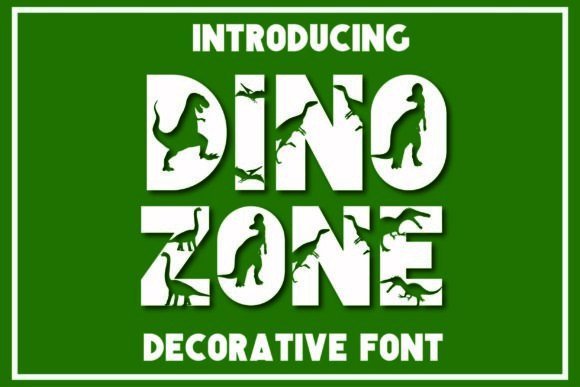
Get Ready to Roar with Creativity: Introducing Dinozone Font
Who hasn’t felt the thrill of a blank page staring back at them, waiting to be transformed into something truly special? For designers and crafty individuals, this moment is a familiar and exhilarating one. As we search for the perfect font to bring our ideas to life, we often find ourselves longing for something that truly stands out from the crowd.
Enter Dinozone Font, a fun and unique decorative font featuring lovely dinosaurs as ornaments. This original look is perfect for adding a touch of whimsy to letterheads, titles, and stationery. Whether you’re a professional designer or a crafty hobbyist, the Dinozone Font is a valuable addition to your creative toolkit.
With its playful and engaging design, the Dinozone Font is sure to inspire a world of creative possibilities. So why settle for a boring, generic font when you can unleash your inner dinosaur lover and make a statement with the Dinozone Font?
Dinozone Font Key Features
- Unique Characteristics: Dinozone Font features a bold, prehistoric-inspired design with a mix of modern and vintage elements, making it perfect for creating a unique visual identity.
Dinozone Font Review
Overall, I think the Dinozone Font is a solid choice for anyone looking for a fun and playful font. ✨ The font’s unique dinosaur-inspired design elements make it stand out from more generic sans-serif fonts. It’s perfect for projects that need a touch of whimsy or nostalgia.
- ✨ The font’s distinct design makes it easy to recognize and remember.
- ✨ The font’s versatility allows it to work well in a variety of contexts, from logos to body text.
- ✨ The font’s unique characters and symbols add a touch of personality to any project.
- ⚠️ The font may not be suitable for formal or professional projects, as it can come across as too playful or immature.
- ⚠️ The font’s bold and condensed versions may not be as legible as the regular version, especially at smaller font sizes.
In conclusion, I think the Dinozone Font is a great choice for anyone looking to add a bit of fun and personality to their projects. While it may not be suitable for every project, it’s definitely worth considering for those that need a touch of whimsy or nostalgia.
Dinozone Font Practical Application Guide
Getting the Most Out of Dinozone Font
Use the Dinozone Font to add a playful touch to your designs.
Pair it with bold, colorful graphics for a fun and energetic look.
Dinozone Font is perfect for:
Children’s books and educational materials.
Marketing materials for kids’ brands and products.
Playful website headers and footers.
Alternatives to Dinozone Font
Coolvetica
Coolvetica is a sans-serif font that resembles a retro aesthetic. It’s ideal for designs that require a touch of nostalgia and playfulness. It’s a great alternative to Dinozone Font for projects that need a fun and casual tone.
Comparison to Dinozone Font: Coolvetica has a similar playful feel, but it’s more modern and sleek. It’s a better choice for designs that require a clean and sophisticated look.
Great Vibes is a script font that’s perfect for adding a touch of elegance and sophistication to designs. It’s ideal for projects that require a sense of luxury and refinement. It’s a great alternative to Dinozone Font for designs that need a more upscale tone.
Comparison to Dinozone Font: Great Vibes has a more refined and elegant feel, making it a better choice for designs that require a high-end look.